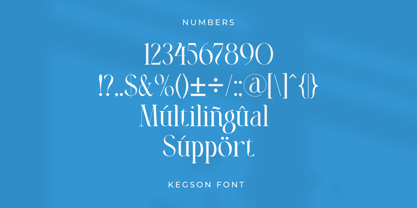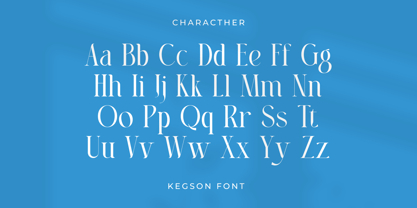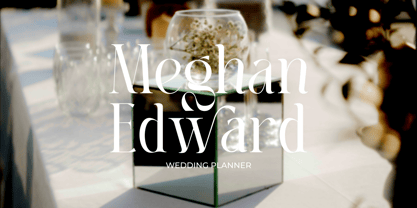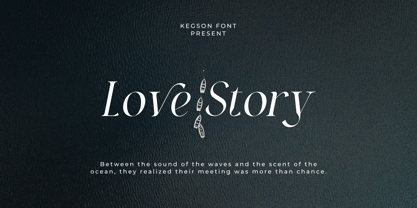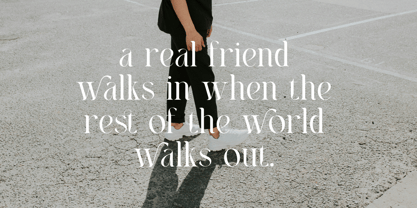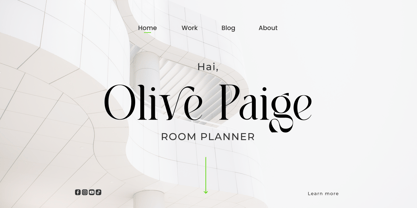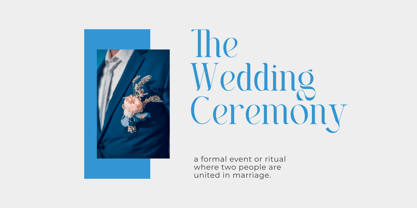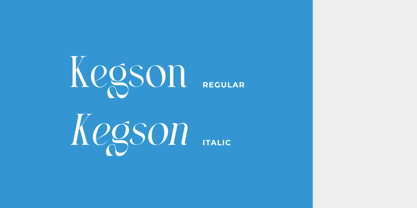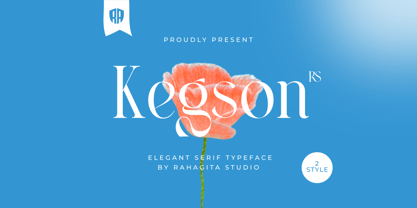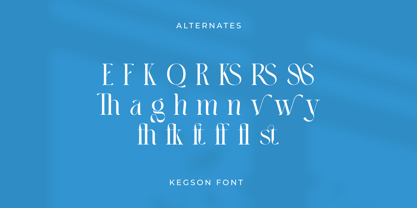
RS Kegson
by RahagitaType
The RS Kegson Font Family was designed by Setiadi Rahagita and published by RahagitaType. RS Kegson contains 2 styles and family package options. More about this family
Kegson is a sophisticated elegant serif typeface designed to convey modern beauty and timeless charm. With two styles (Regular & Italic), refined contrast, and graceful curves, it’s perfect for creating high-end designs with a touch of class. This typeface includes alternates, ligatures, and multilingual support, making it highly versatile for a wide range of creative applications. Ideal for wedding invitations, luxury branding, editorial design, packaging, and modern logos, Kegson brings refinement and artistic flair to every project.
Designers: Setiadi Rahagita
Foundry: RahagitaType